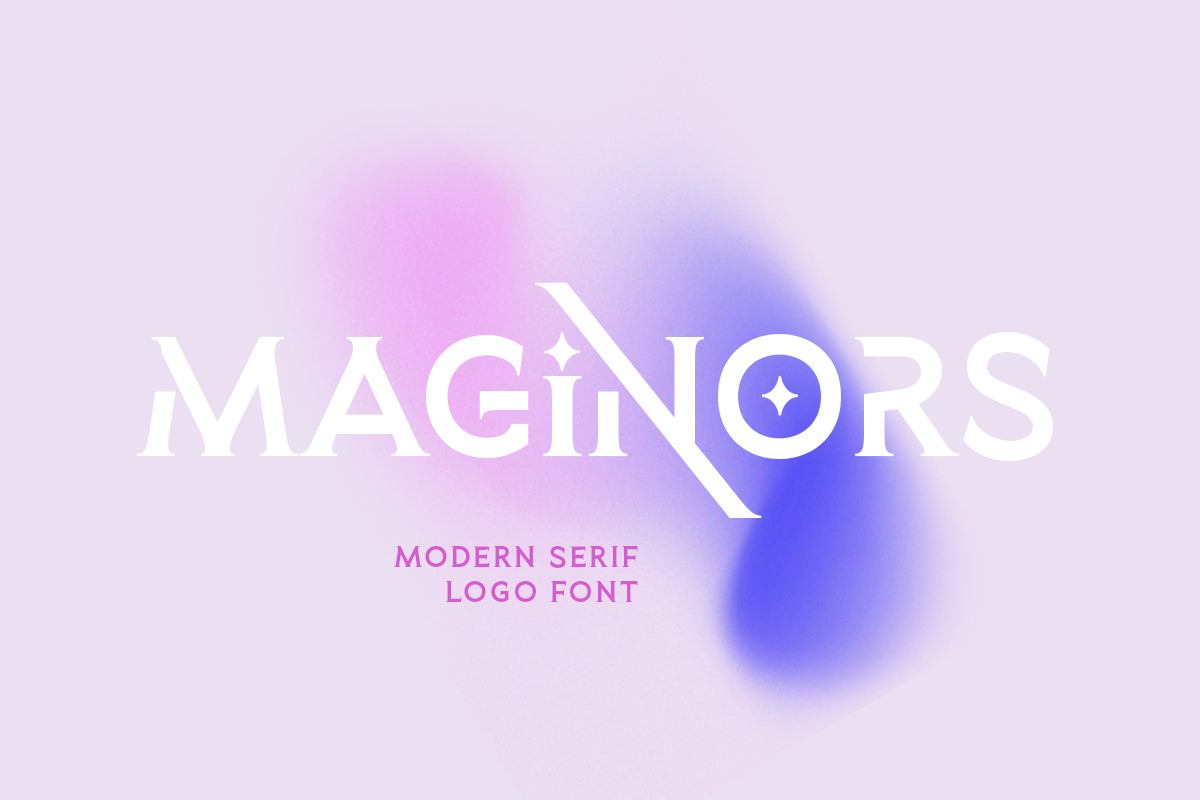
Maginors - Serif Logo Font Free Download
Maginors Serif Logo Font Free Download
Maginors Serif Logo Font Free Download is a refined and stylish serif typeface crafted specifically for high-end branding, logos, and editorial designs. With its clean lines, subtle curves, and elegant presence, this font brings a sense of professionalism and timeless charm to any project. Whether you’re designing a brand identity or a sophisticated magazine layout, Maginors stands out with its classic yet modern appeal.